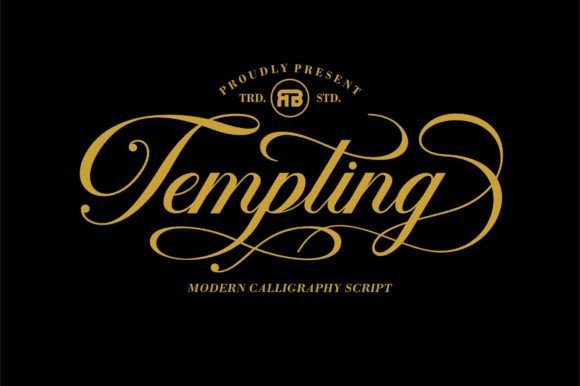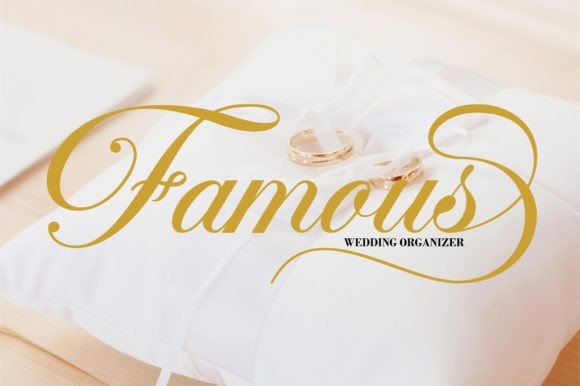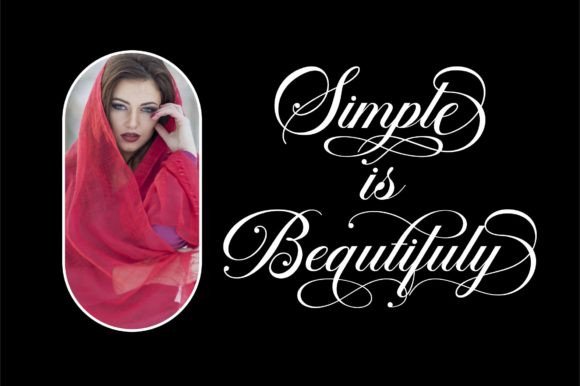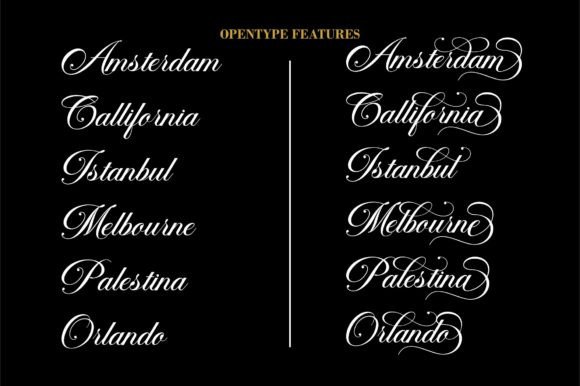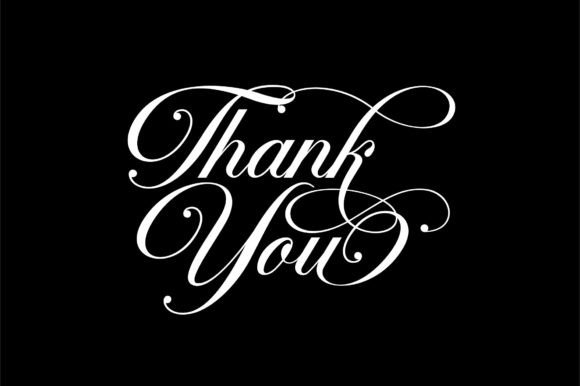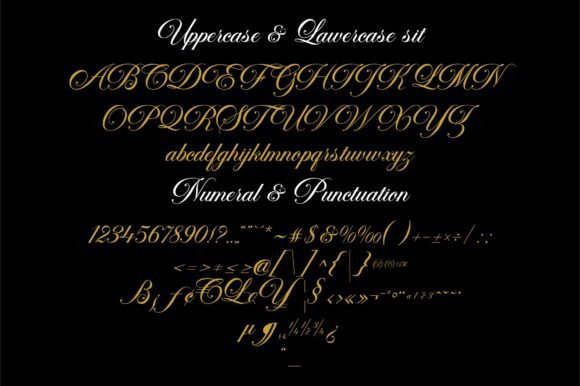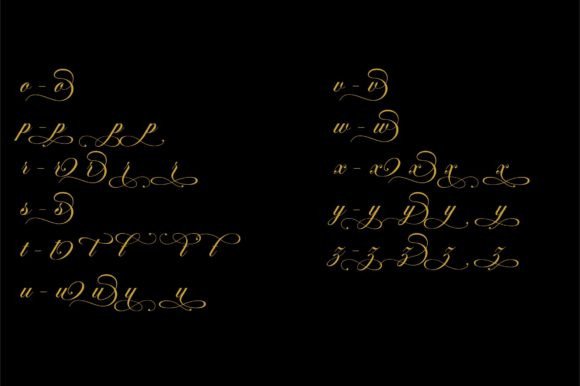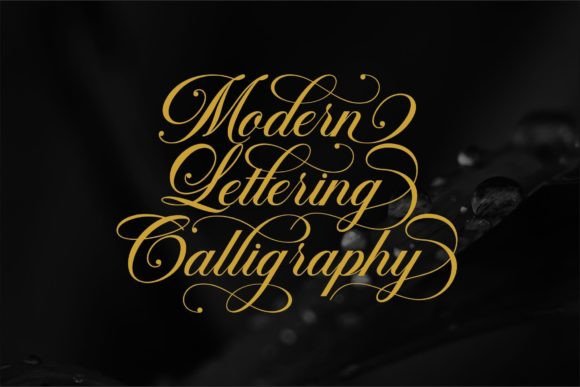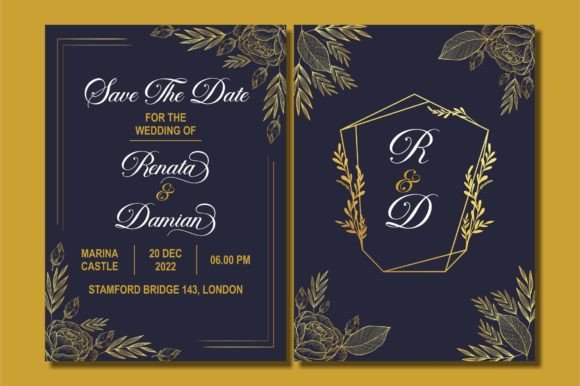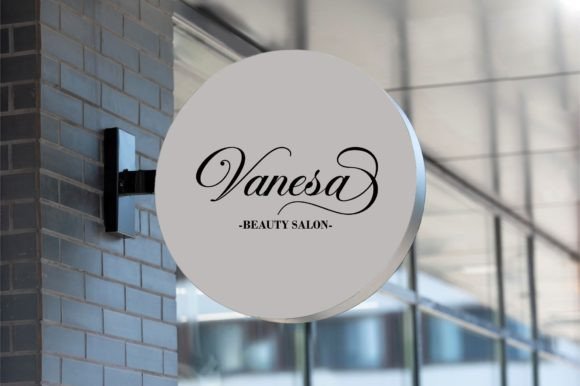
Tempting Font
**Tempting** is a script font that radiates allure and sophistication. Its dazzling and highly detailed design makes it a standout choice for a wide range of creative projects. Regardless of the topic or theme, Tempting serves as a valuable asset in your font library, enhancing the visual appeal of any creation it graces.
One of the standout features of Tempting is its intricacy. The font’s detailed letterforms and decorative elements create a sense of elegance and refinement. Tempting adds a touch of luxury and glamour to designs, making it particularly suitable for upscale branding, invitations, product packaging, and other projects that demand a high level of sophistication. Its dazzling appearance ensures that your designs captivate the audience, leaving a lasting impression of opulence and style.
Tempting’s craftsmanship is evident in its neatly crafted characters and flowing strokes. The font’s script style exudes a sense of fluidity and grace, enhancing the overall visual harmony of your designs. Whether used in headlines, quotes, or decorative elements, Tempting brings a sense of allure to the text, making it visually captivating and enchanting.
The font’s PUA encoding provides easy access to a wide array of glyphs and swashes, allowing you to customize and enhance your designs effortlessly. This feature empowers you to create bespoke typographic compositions, adding a touch of individuality and creativity to your projects. Tempting’s versatility and accessibility make it a valuable asset for designers seeking a font that combines intricate details with customization options.
In summary, Tempting is a dazzling script font that elevates your designs with its intricate details and sophisticated charm. Its refined letterforms and decorative elements make it a valuable choice for designers aiming to create visually stunning and elegant creations. By incorporating Tempting into your designs, you can infuse them with a sense of allure and sophistication, ensuring they leave a lasting impression of beauty and refinement.